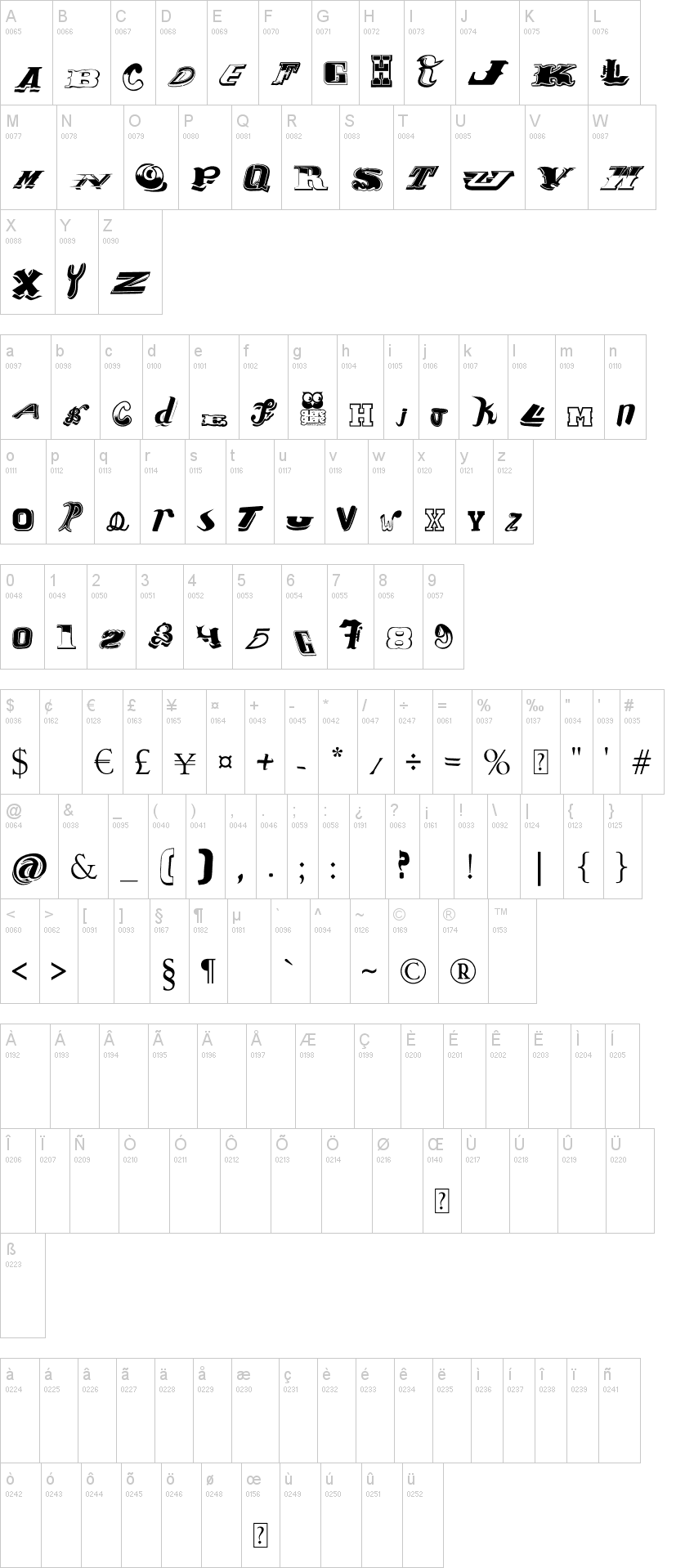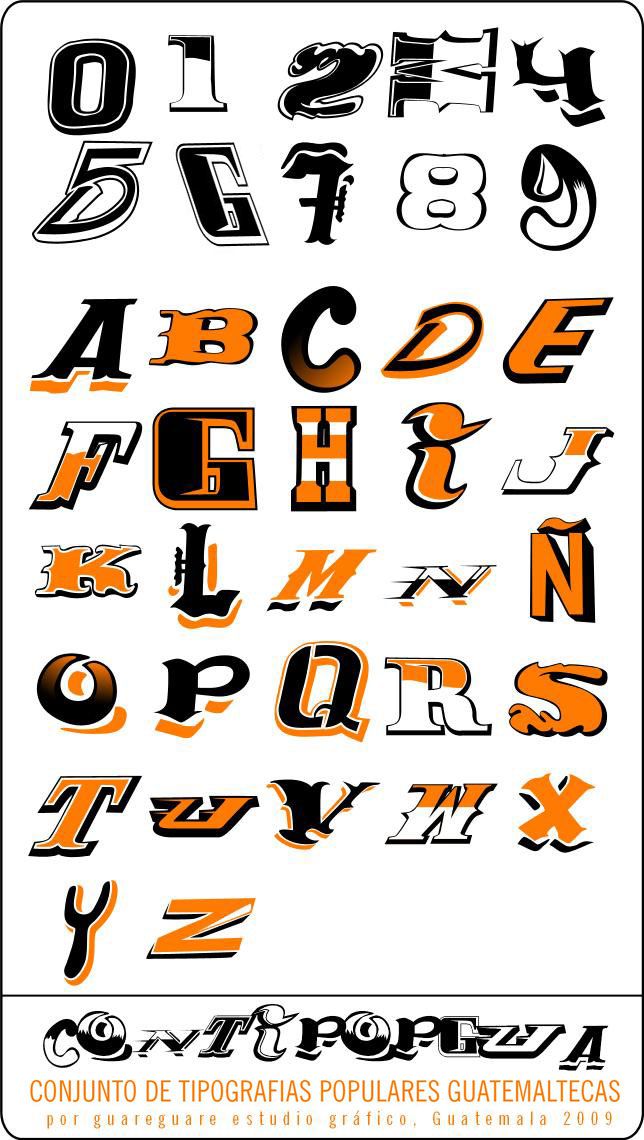
Шрифт Contipopgua
Group of guatemalan popular tipography; currently used in the streets, buses, publicity, etc. as part of our popular culture. Designed by guareguare graphic studio.
Conjunto de tipografia popular guatemalteca; habitualmente usada en las calles, buses, publicidad, etc. como parte de nuestra cultura popular. Diseñada por guareguare estudio gráfico.